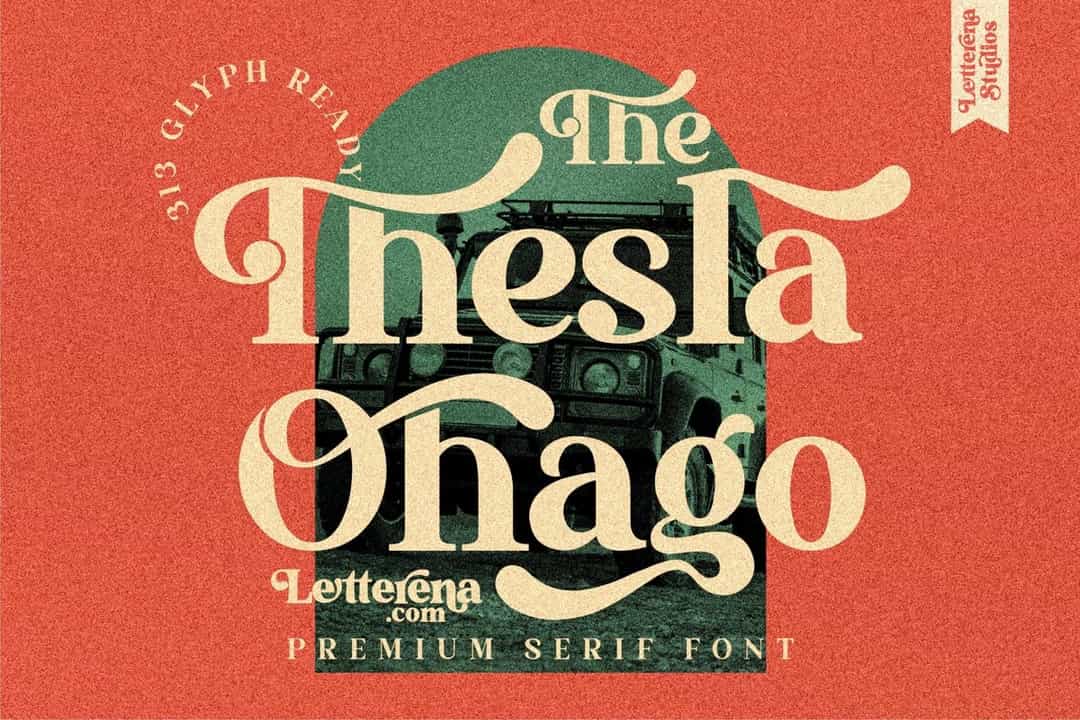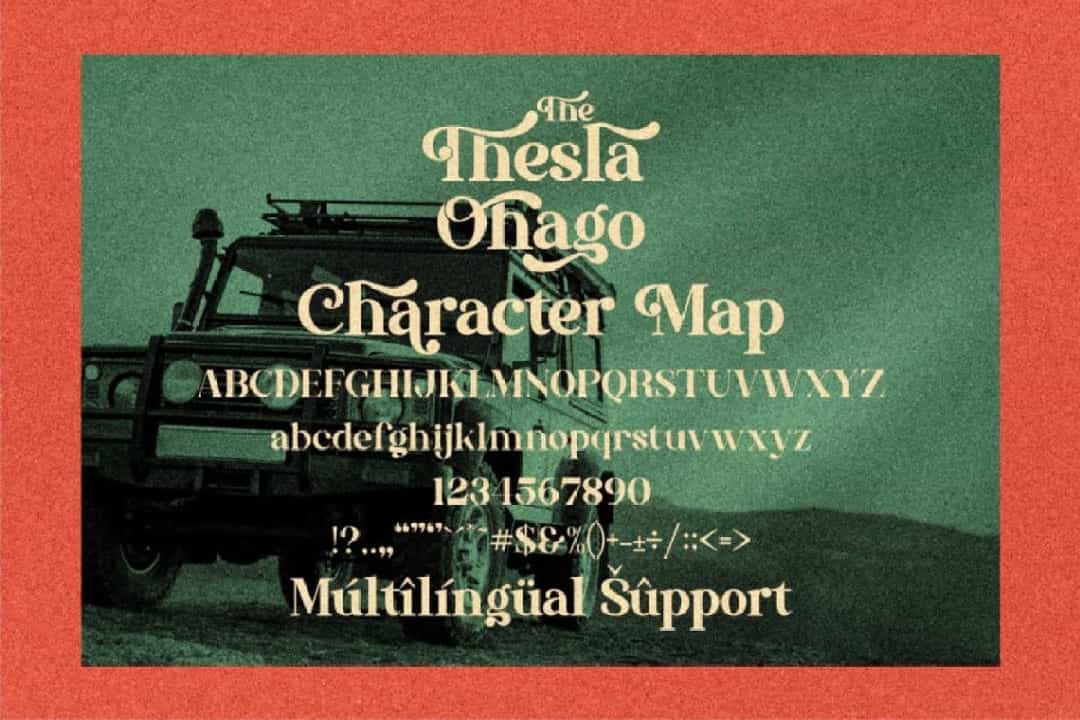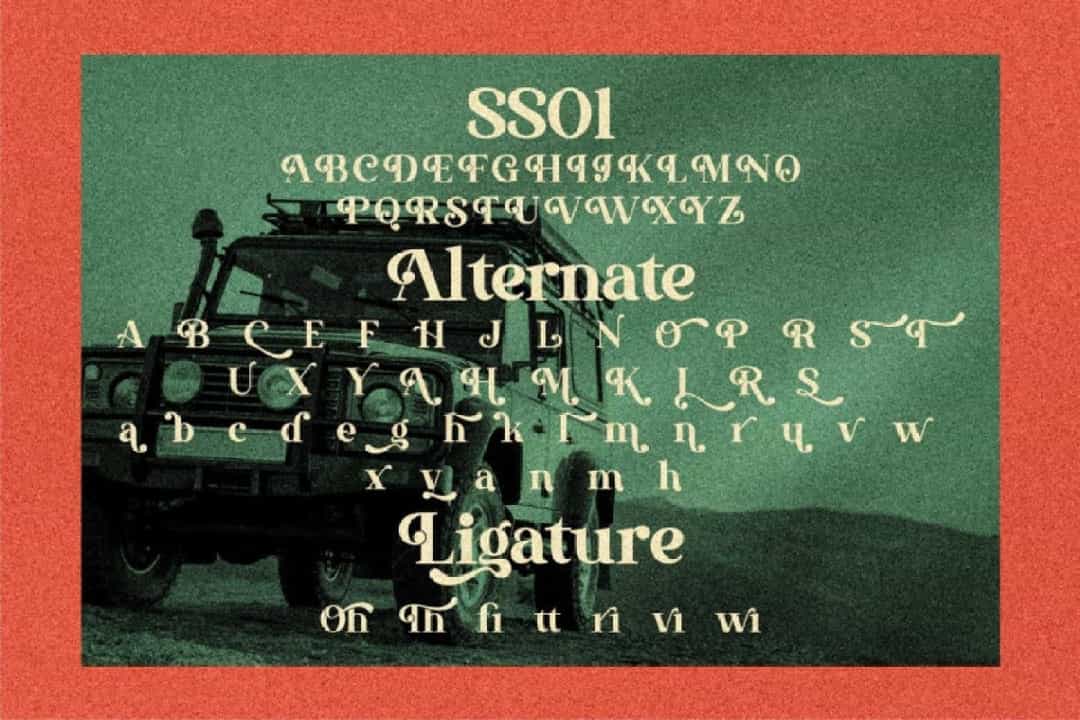
The Thesla Ohago is an elegant luxury serif font that can be used in a range of projects, from logo and branding, homeware, packaging for products like mugs with quotes on them, shopping bags with handles, posters and book covers to greeting cards, invitation cards, labels and photographs or watermarks and any other luxury projects that require a beautiful serif font.